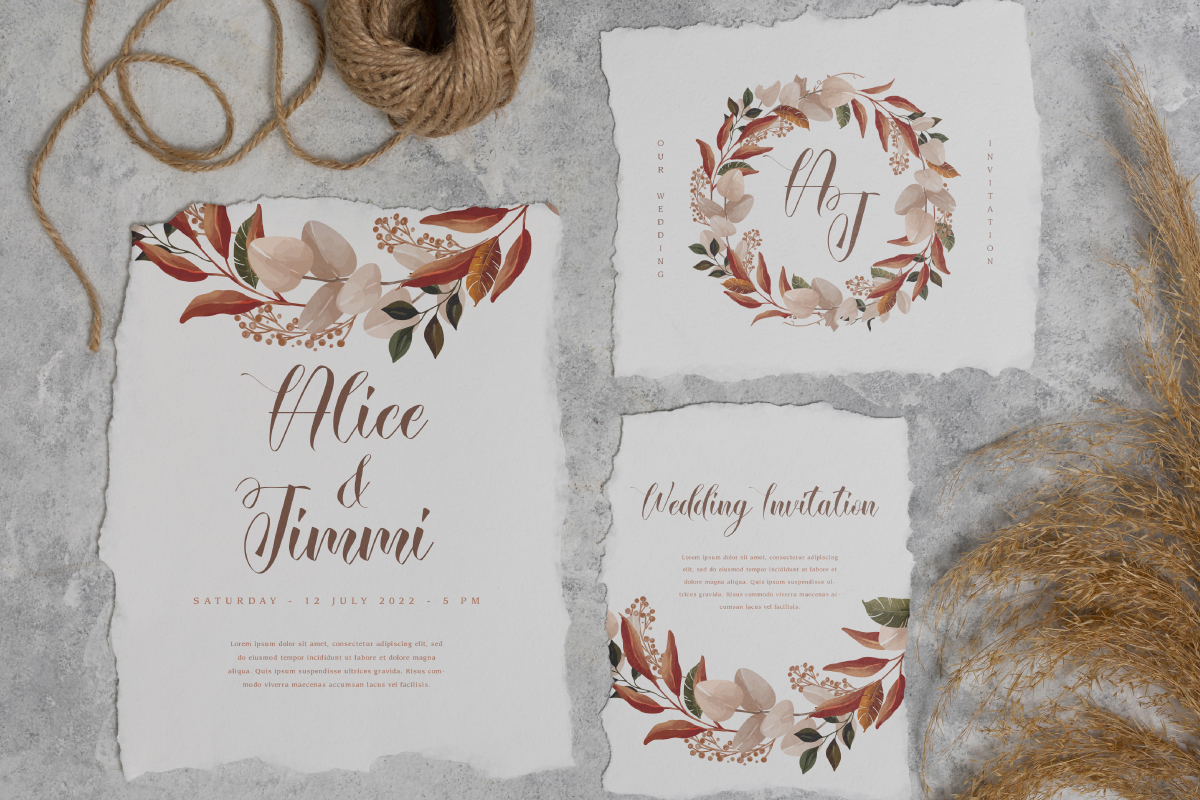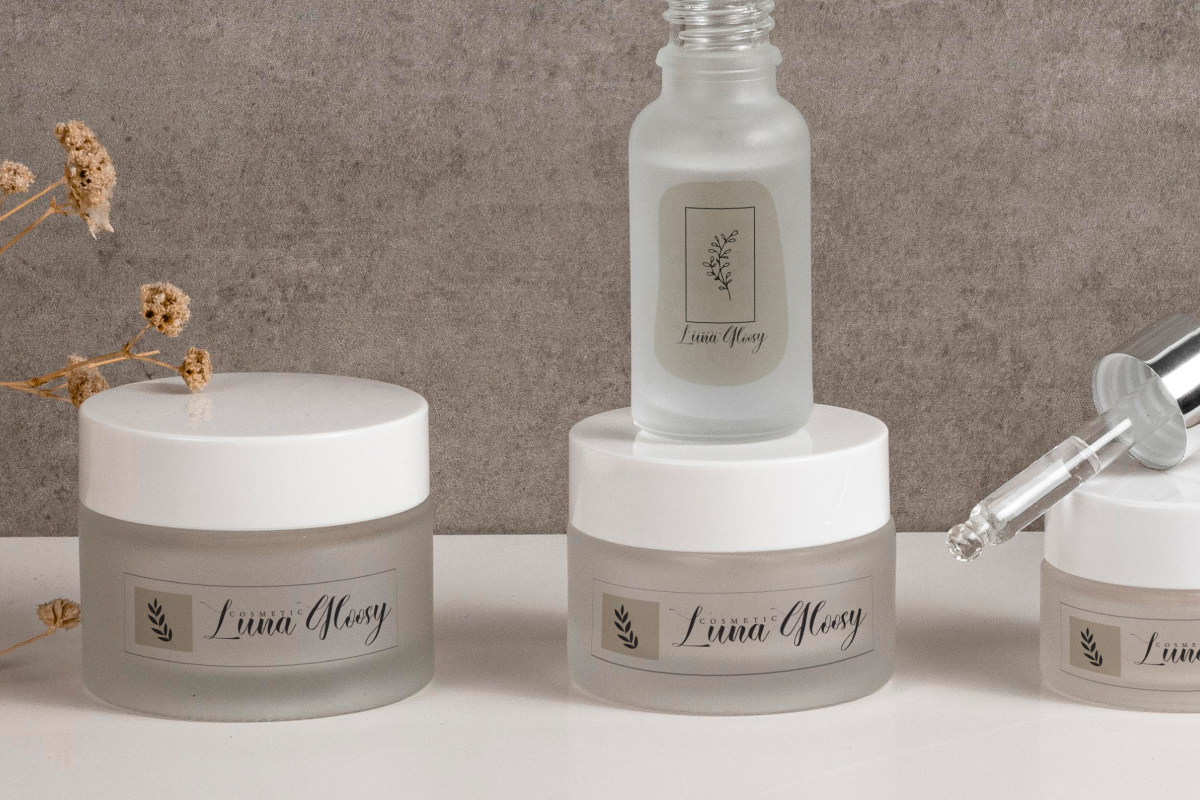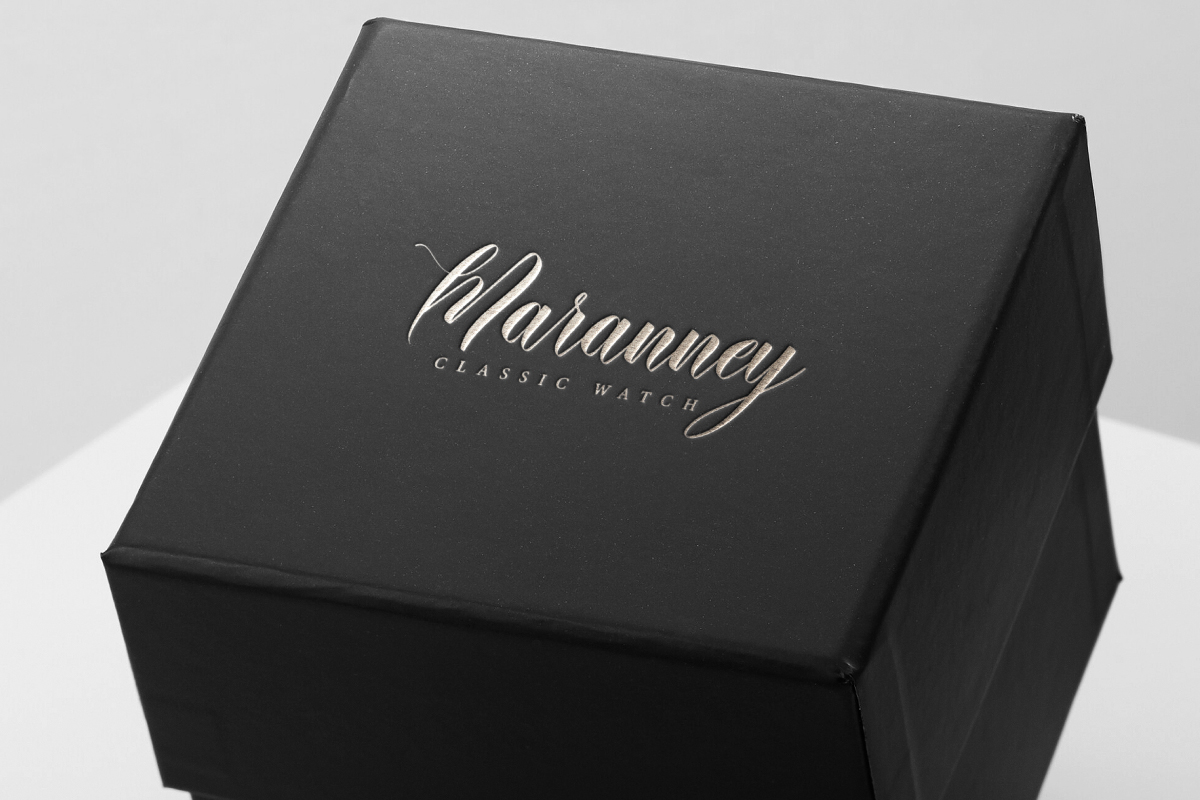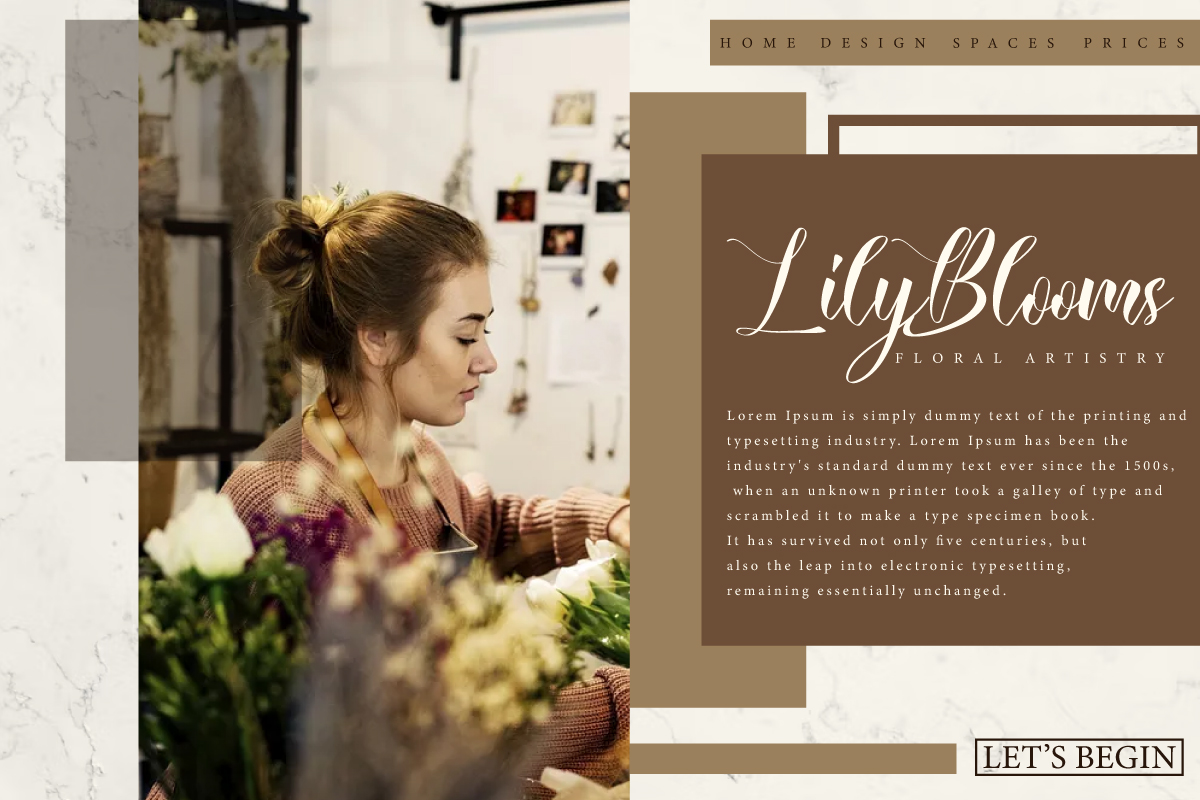
Luminous Canded Font
Luminous Canded Calligraphy Font is a luxurious script font with calligraphy style. It has a modern and stylish look that is easy to read and will add beauty to your designs, such as billboard, invitation, label, magazine catalog, packaging design, quotes, stationery, sticker, title, watermark, website, and much more!